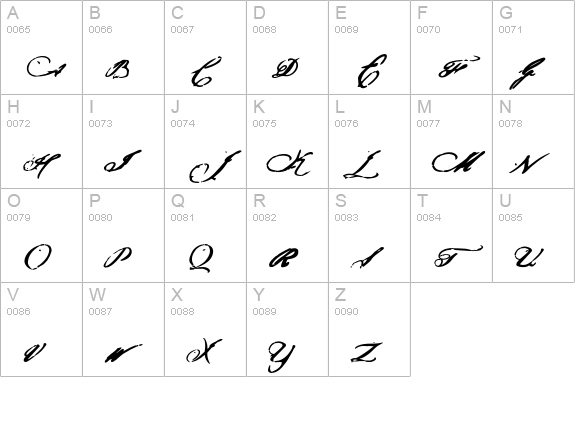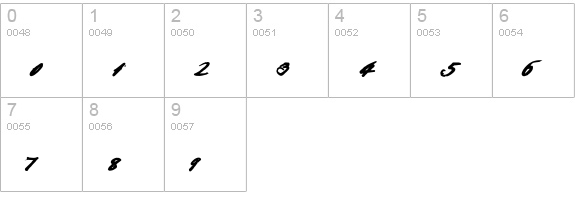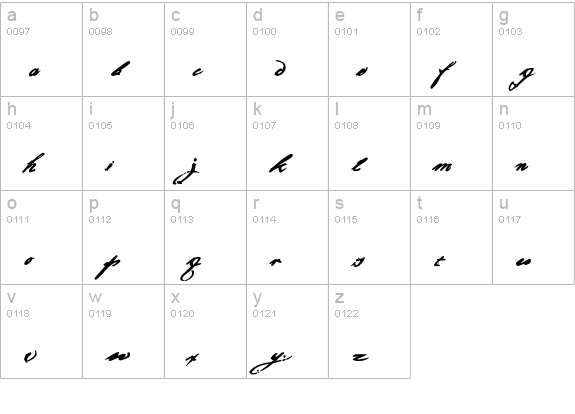
Article10-Bold Font Details
Article10-Bold is a strong, high-contrast variant in the Article10 typeface family \xE2\x80\x94 well suited to headlines, attention-grabbing titles, and strong calls-to-action.
Article10-Bold font is a striking and bold typeface that demands attention and makes a statement. With its strong and powerful presence, this font is perfect for headlines, titles, and other prominent text in your designs. The bold strokes and clean lines give Article10-Bold a modern and professional look, making it an excellent choice for various projects. What's even better is that Article10-Bold font is completely free to download at FontsMarket.com. You can easily access this impressive font without any cost, making it a valuable addition to your font collection. Don't miss out on the opportunity to enhance your designs with the bold and impactful Article10-Bold font. Download it now and start creating visually stunning projects today!